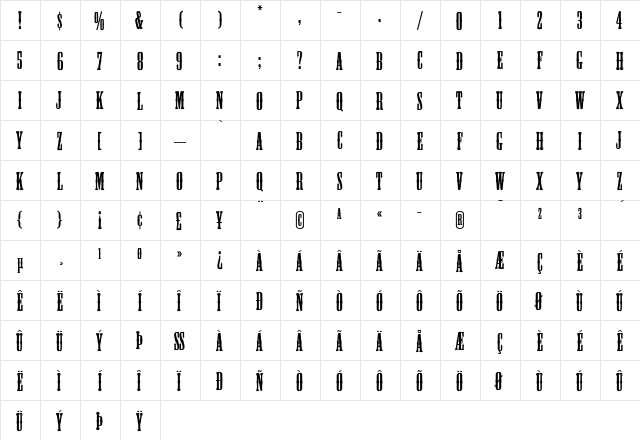
Mesquite Regular
Design Context for Mesquite Typeface
Mesquite is a composed and adaptable typeface that performs quietly and consistently across a wide range of design contexts.